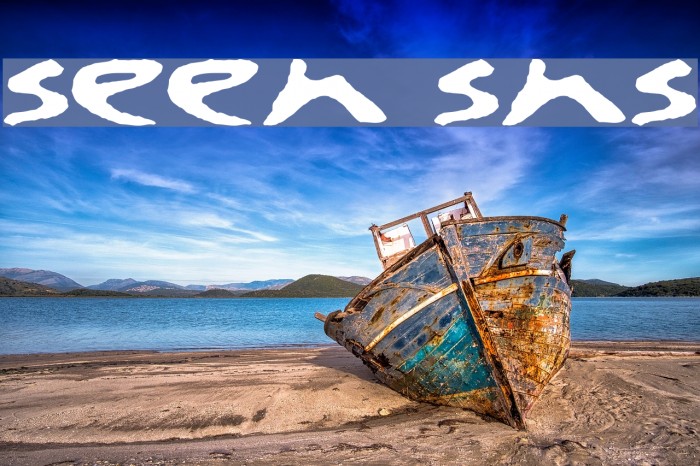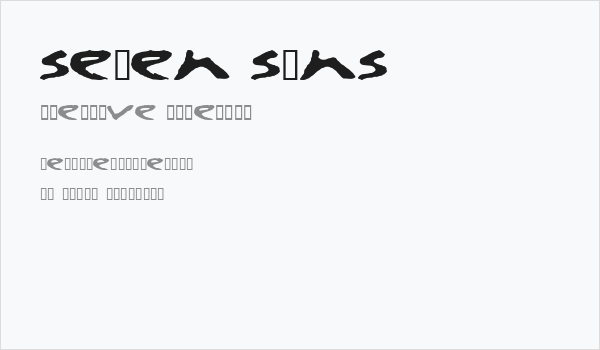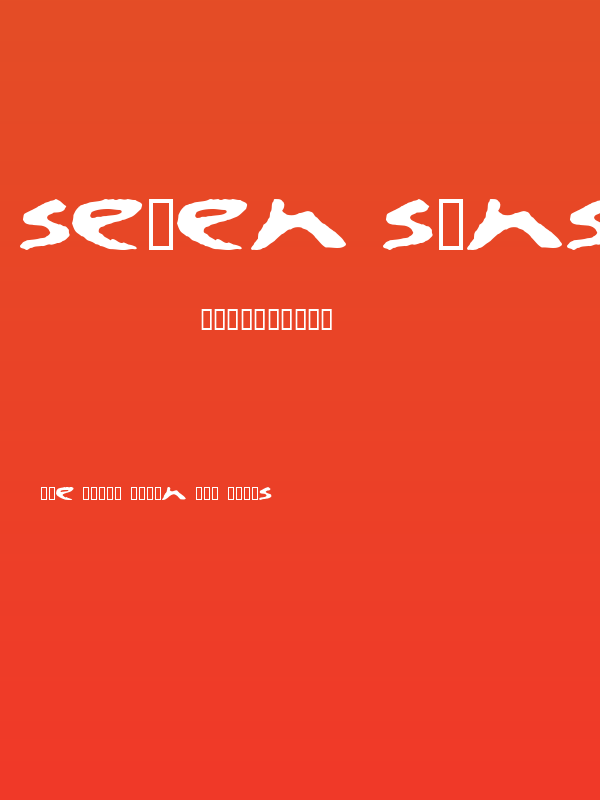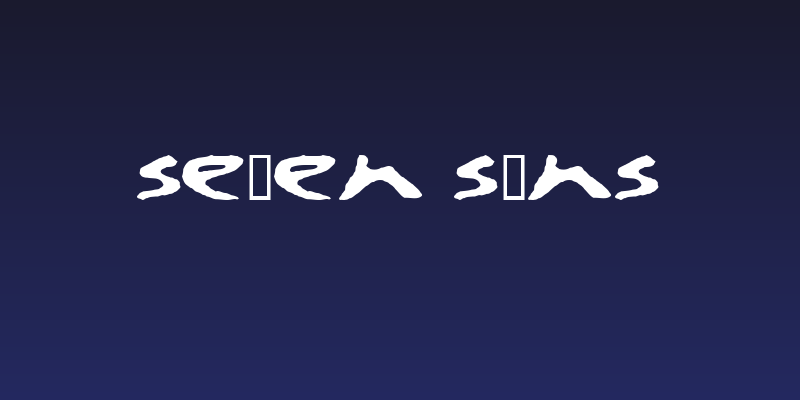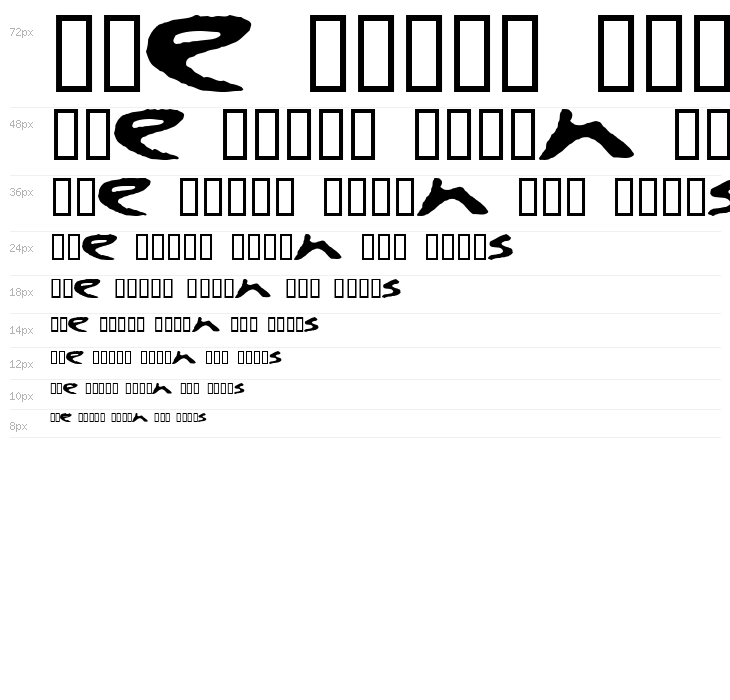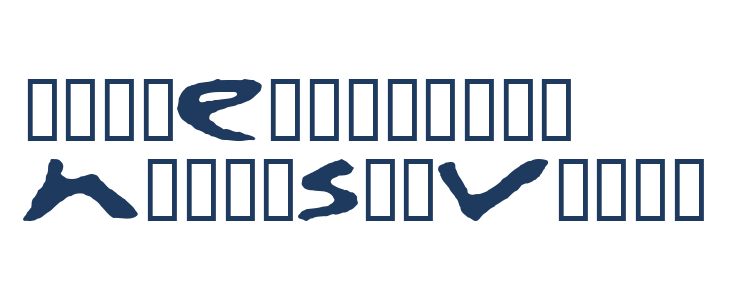
se7en sins Font
se7en sins Description
This font features a bold and expressive style, with a hand-drawn appearance that gives it a unique and artistic flair. The letters are irregular and dynamic, with varying stroke thickness that adds to its visual interest. The overall design is reminiscent of brush strokes, providing a sense of movement and energy. This font is ideal for projects that require a personal touch or a creative, informal aesthetic. The characters are distinct and easily recognizable, making it suitable for attention-grabbing headlines or artistic designs.
| Use Case | Headlines, Logos, Artistic designs |
| Proposed Projects | Ideal for creative projects such as posters, album covers, or branding that requires a personal and artistic touch. |